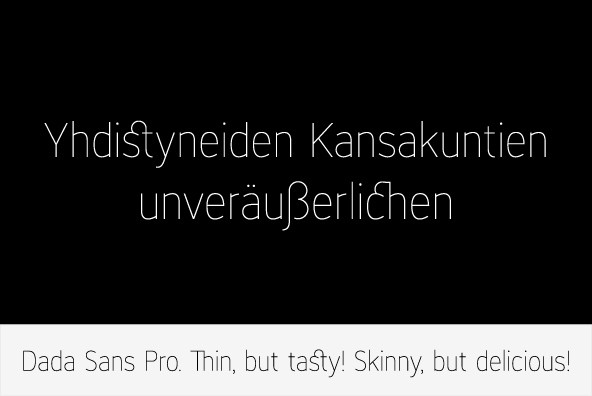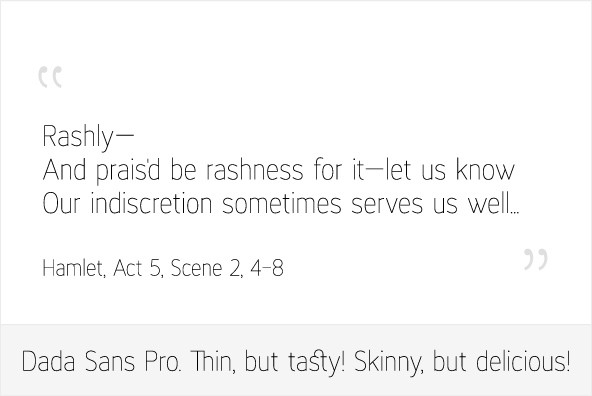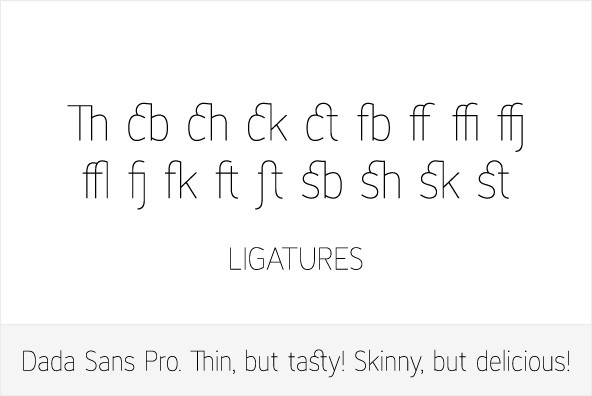
Dada Sans Pro
Dada Sans Pro is simple in form but elegant font with huge language support and OpenType features such as ligatures, stylistic alternates, ordinals, fractions, four variations of numerals and many more... It is suitable for large headlines in applications like magazines or newspapers.